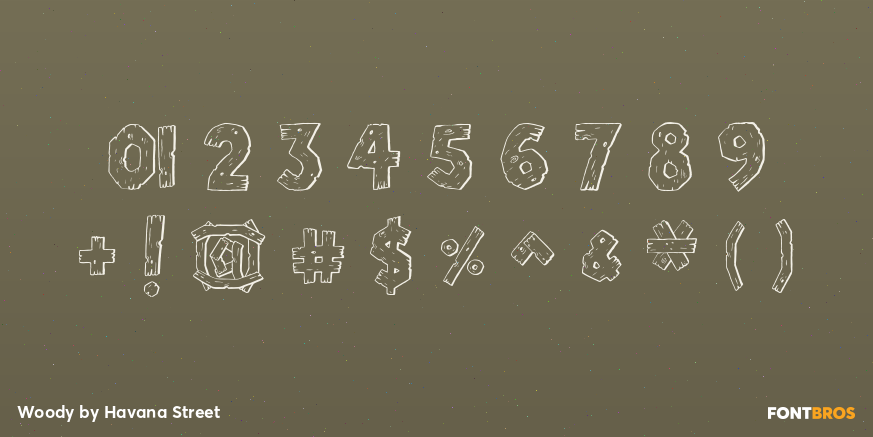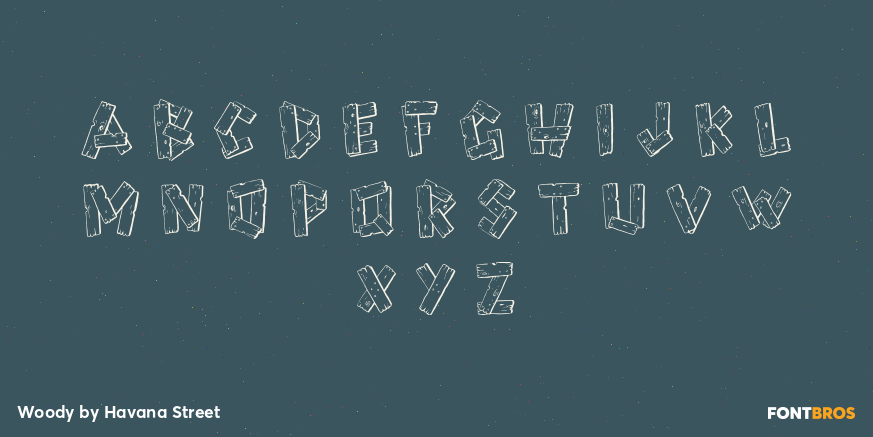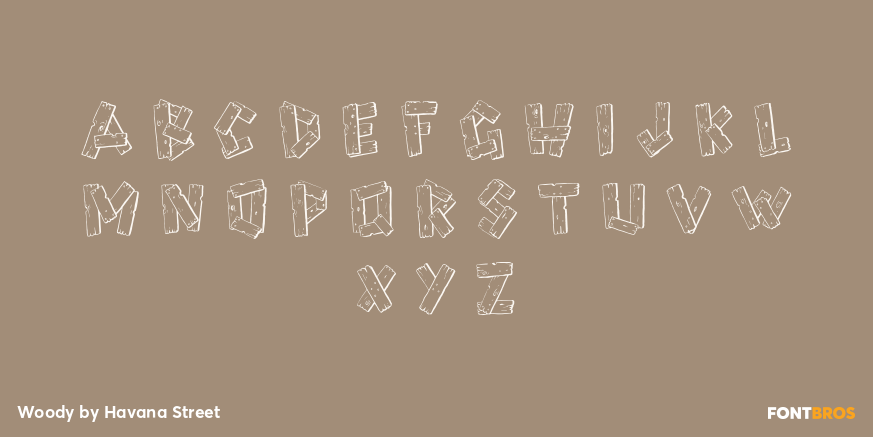
Woody
Font Family by Havana Street
Yee Haw Pardners! Meet Woody the roughest ridin' rootin' tootin' dern wood typeface we ever laid eyes on!
Previously available only from the hand of the artist, Havana Street has brought original 1940s style Hollywood hand-lettered, movie poster-type to your keyboard. Now you too can adorn your creations with these wonderfully gaudy fonts.